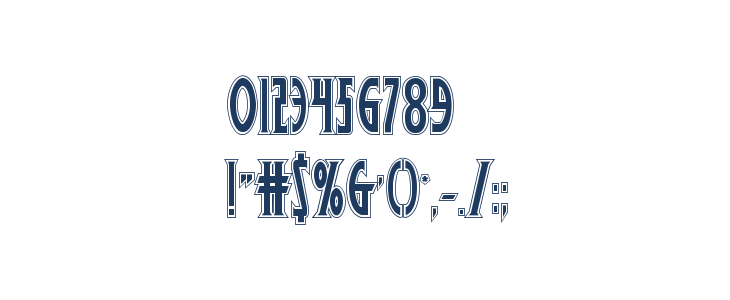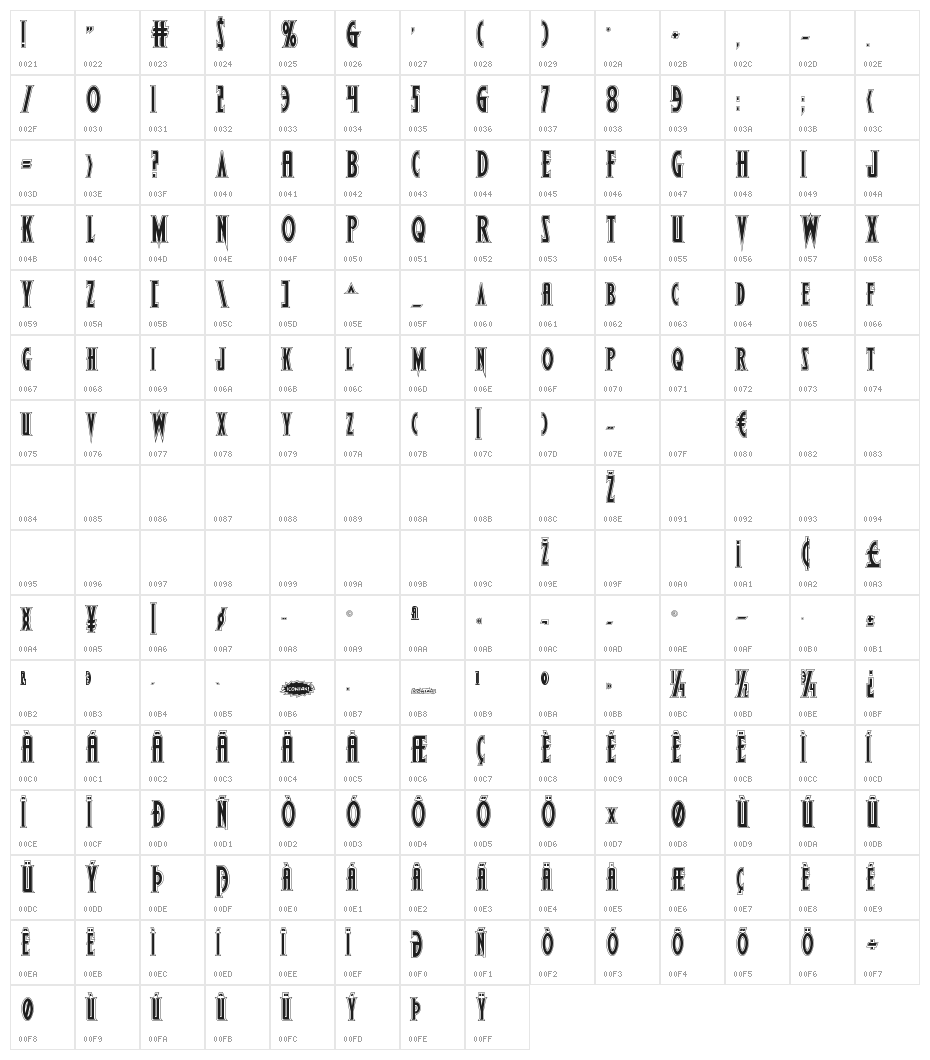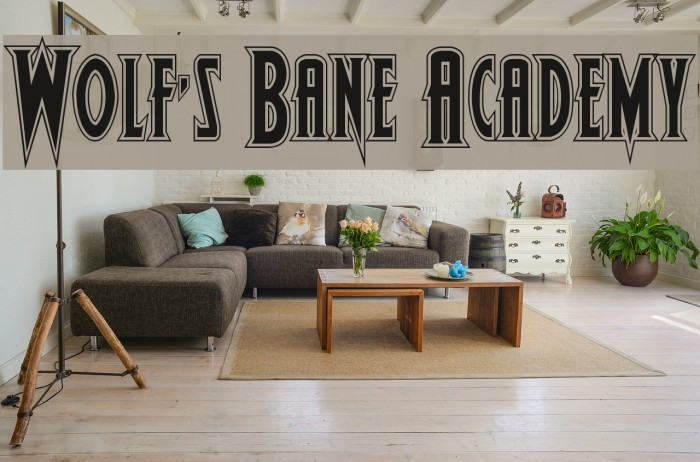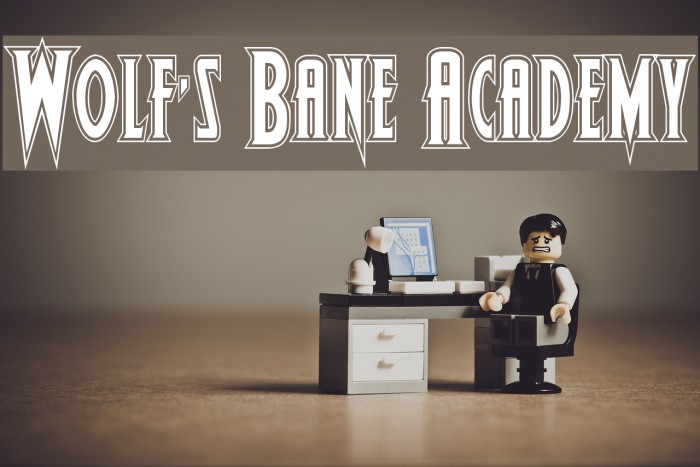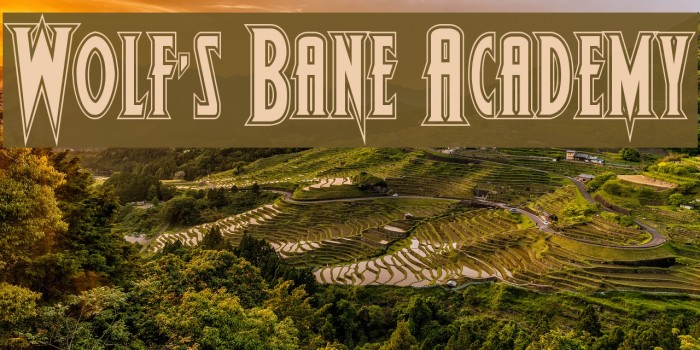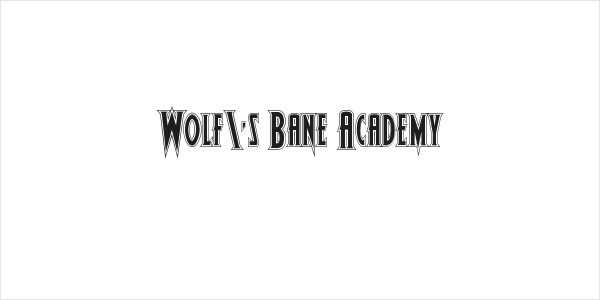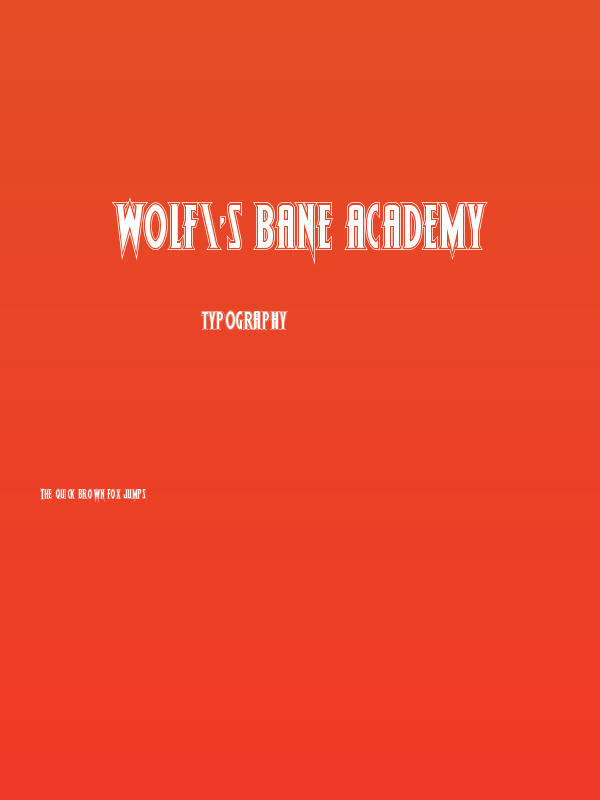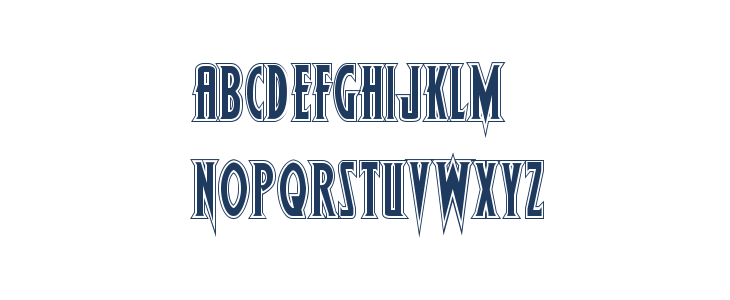
Wolf's Bane Academy Font
Wolf's Bane Academy Description
This font features a bold and dramatic style with sharp, angular serifs and a strong presence. The characters are outlined, adding depth and a three-dimensional effect. The design is reminiscent of gothic or medieval themes, making it suitable for projects that require a bold and striking appearance. The uppercase letters are particularly prominent, with a consistent height and width that ensures readability while maintaining a decorative flair. The numbers and special characters follow the same stylistic approach, providing a cohesive look across all elements.
| Overall Style | Gothic, Decorative |
| Proposed Projects | Ideal for use in fantasy-themed posters, book covers, or video game titles. |